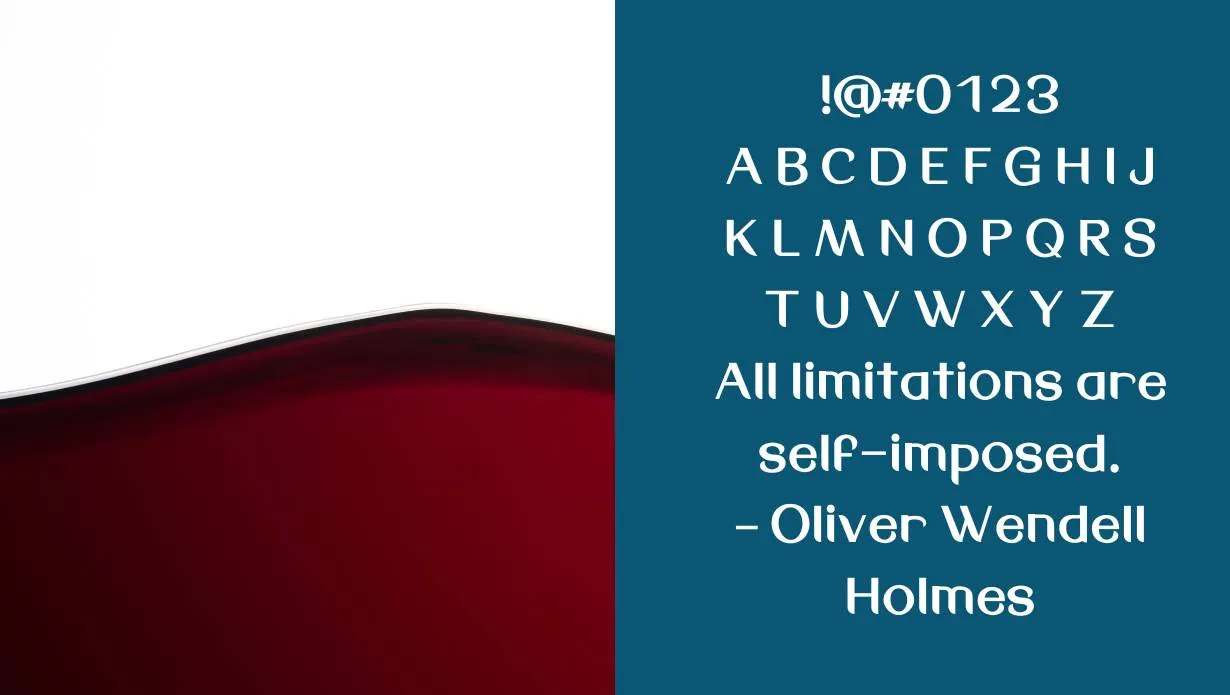
Feathercut Font is a sans-serif typeface created by British designer Paul Renner in 1927. The typeface is characterized by its Feathercut letterforms and was inspired by the work of German typographer Rudolf Koch.
Despite its popularity, This Font has some drawbacks. Some users find the typeface to be too light and delicate, while others feel that it lacks personality. Additionally, the Feathercut letterforms can be easy to read in small sizes.
Feathercut Font Family
| Name | Feathercut Font |
| Designer | Paul Renner |